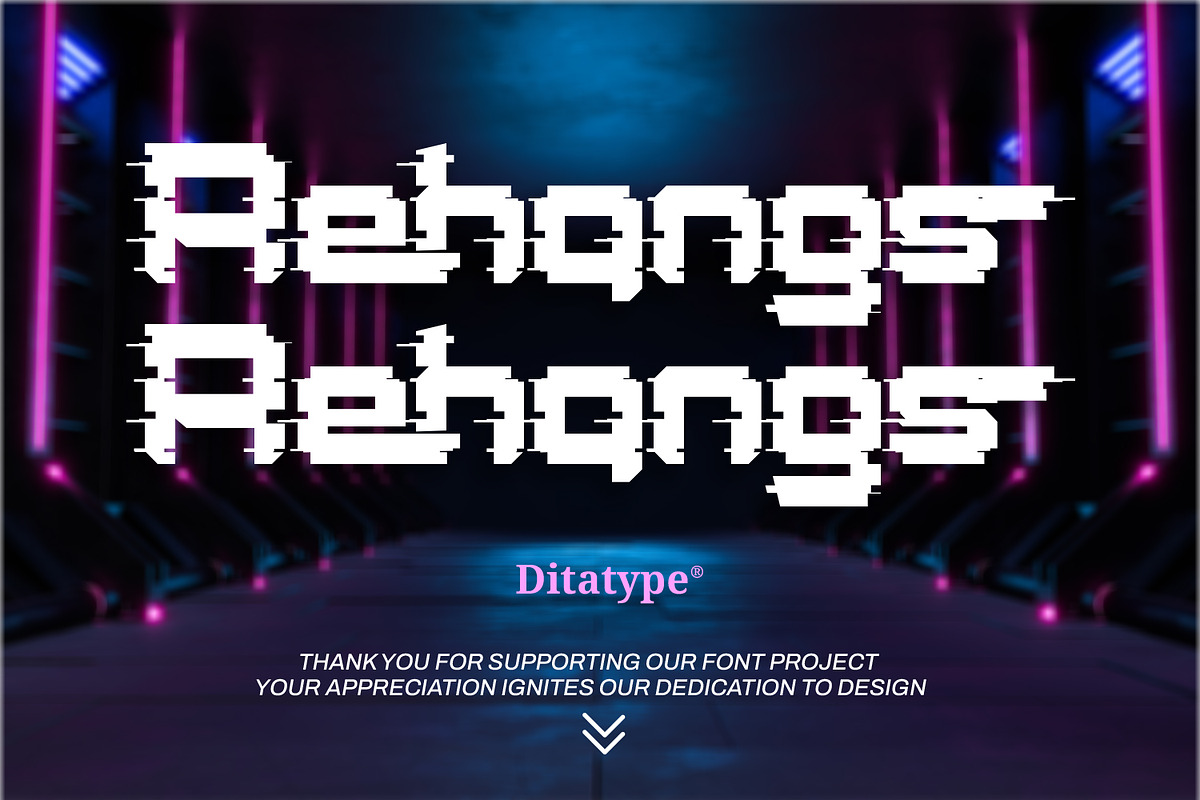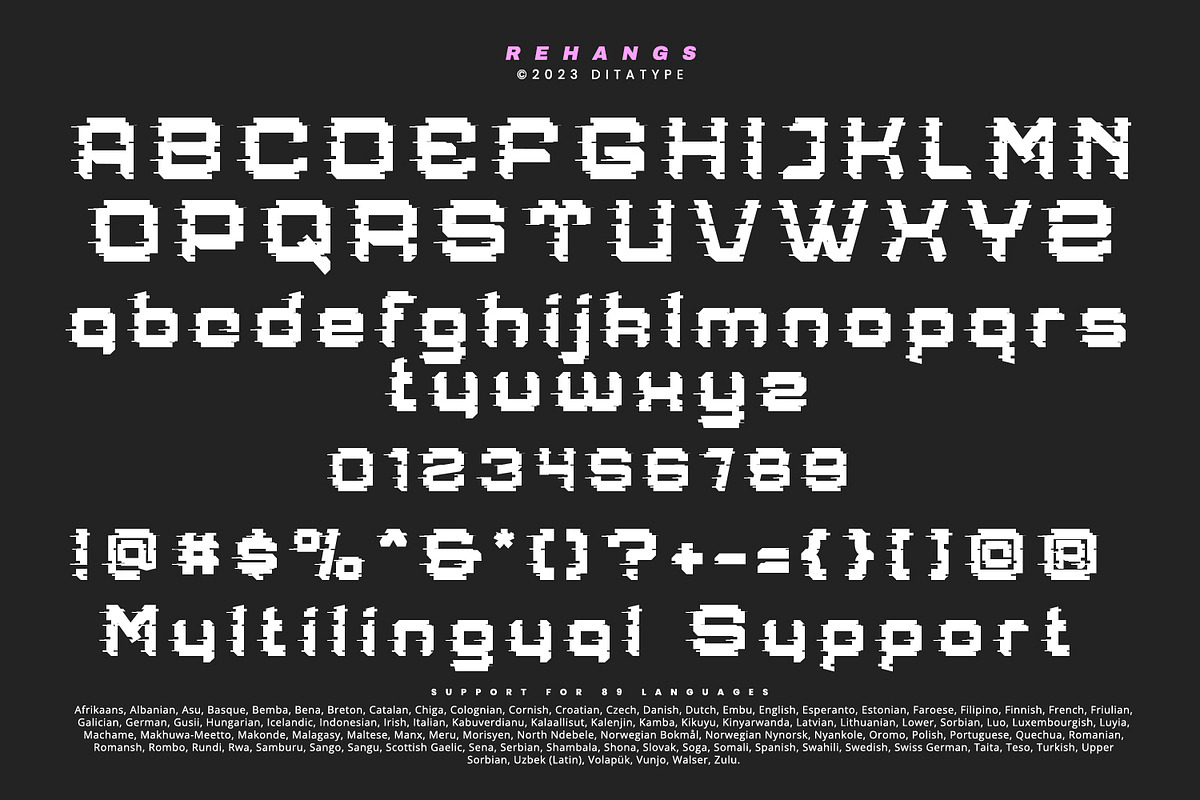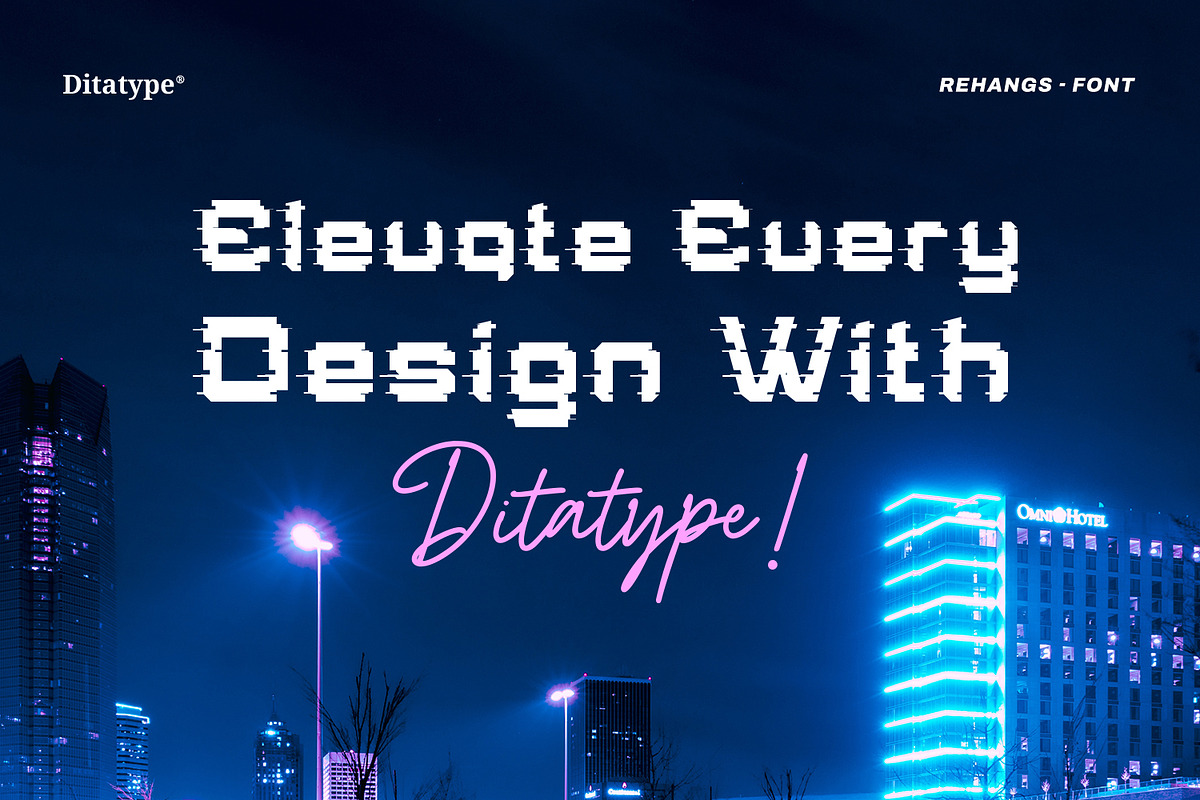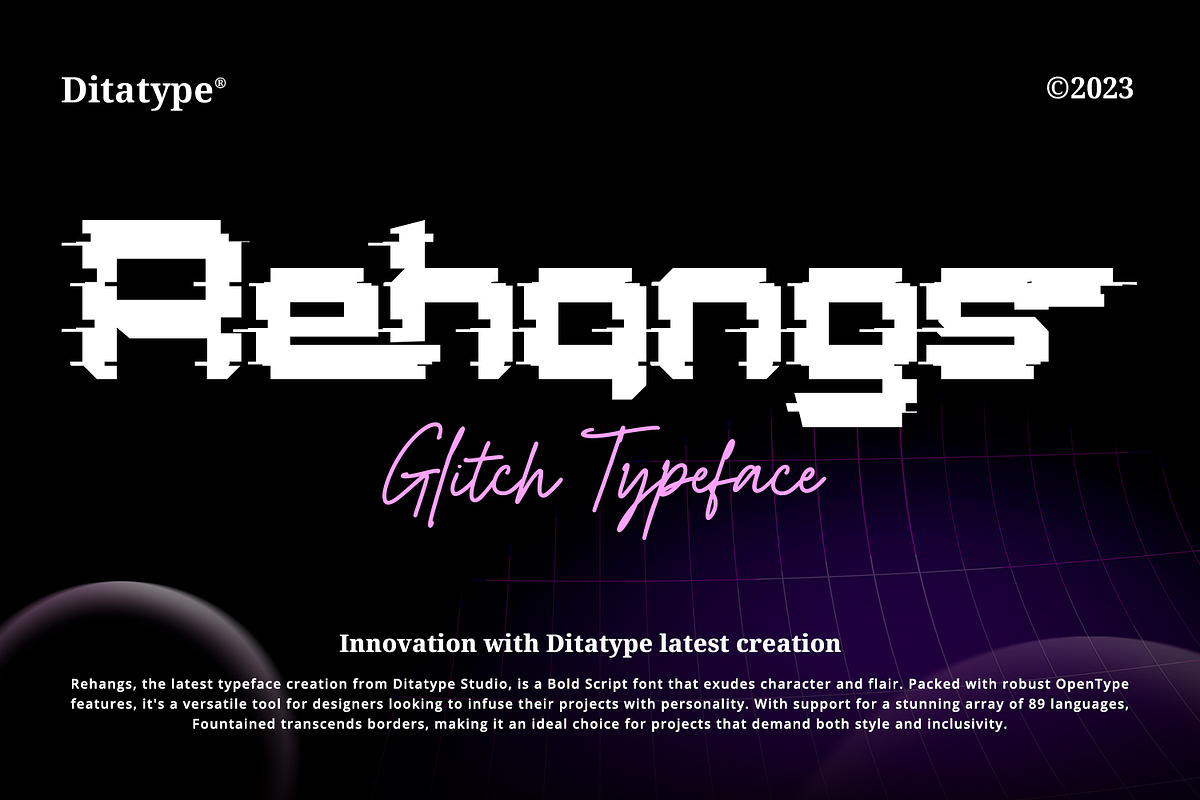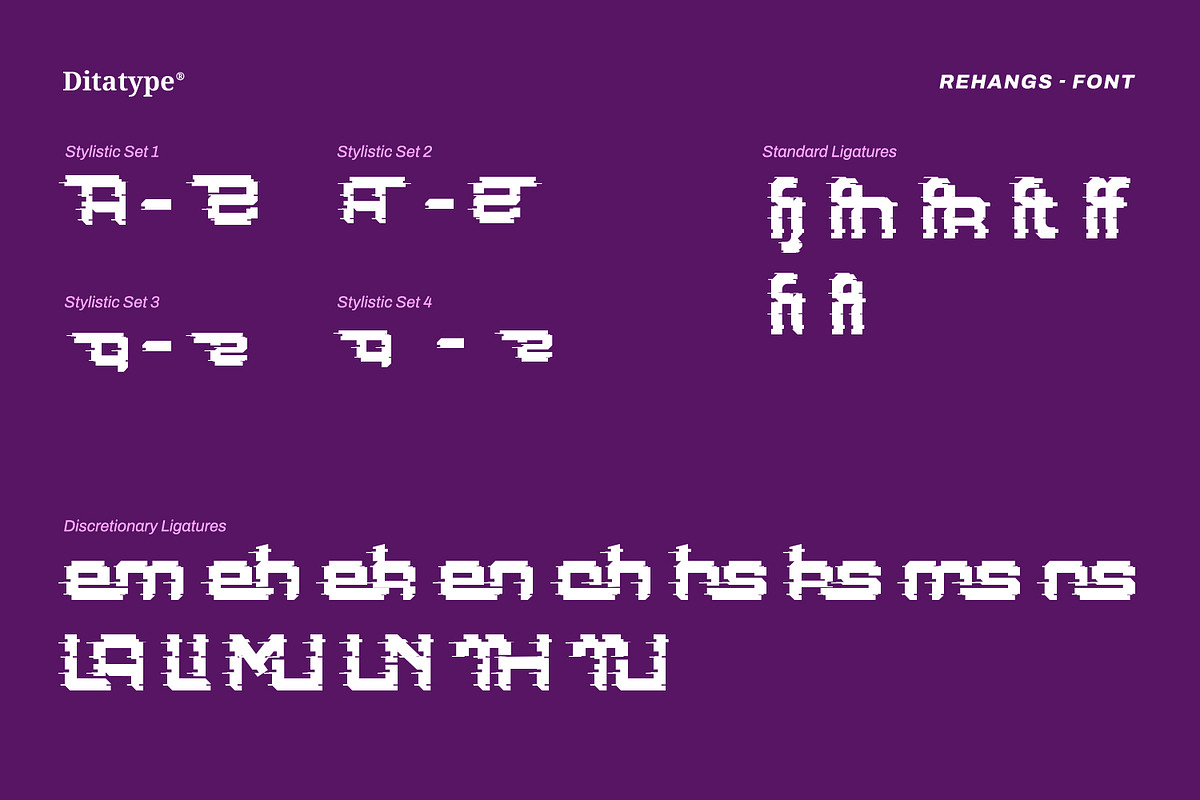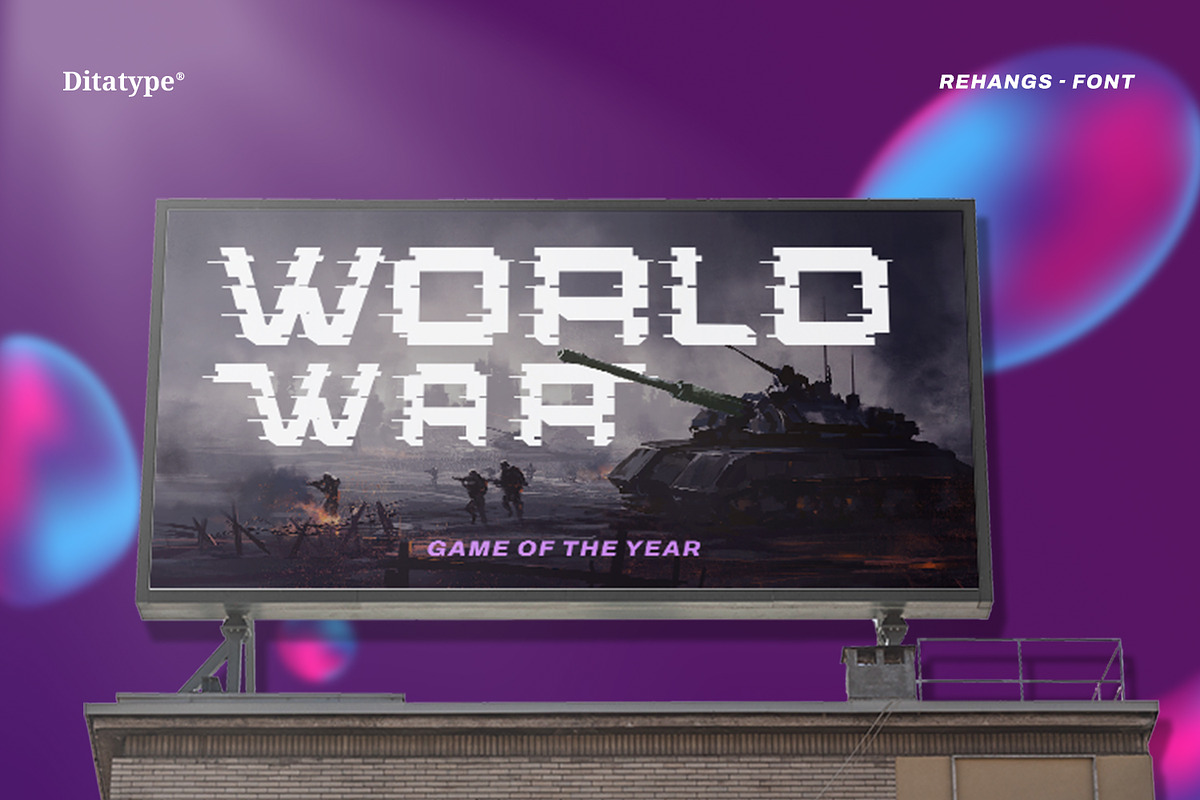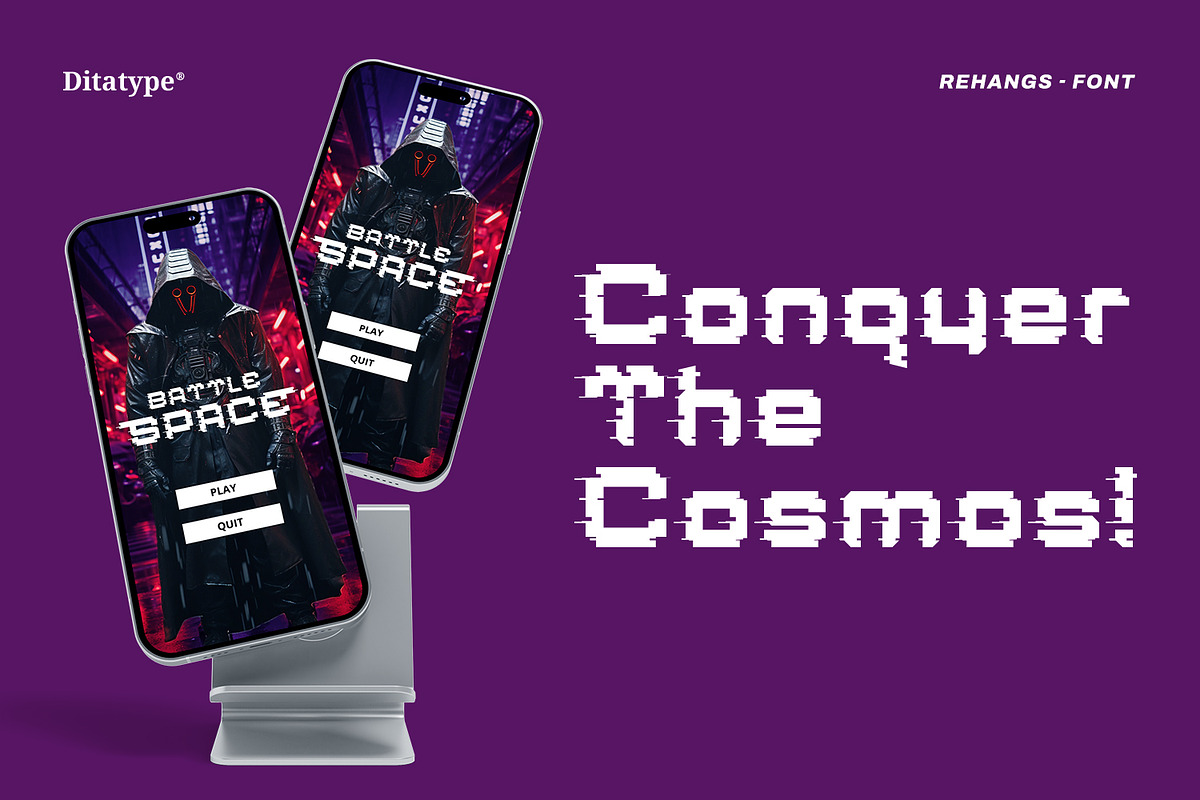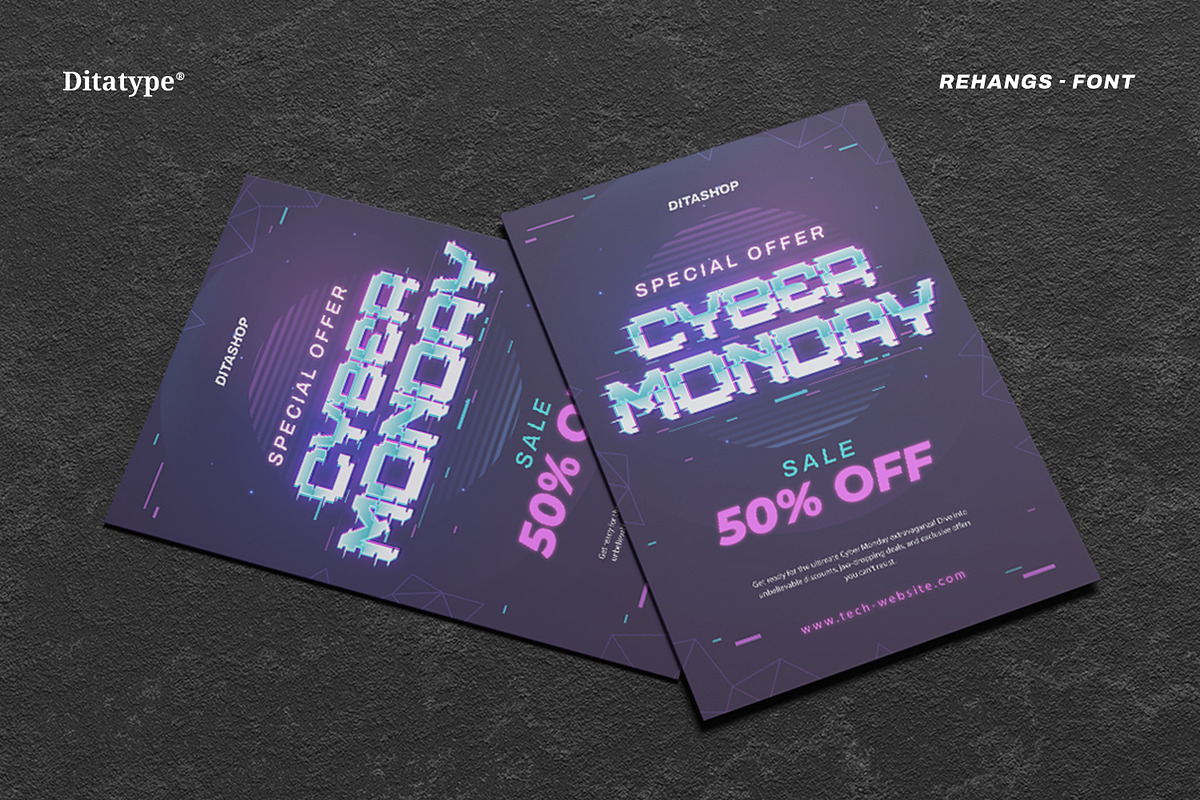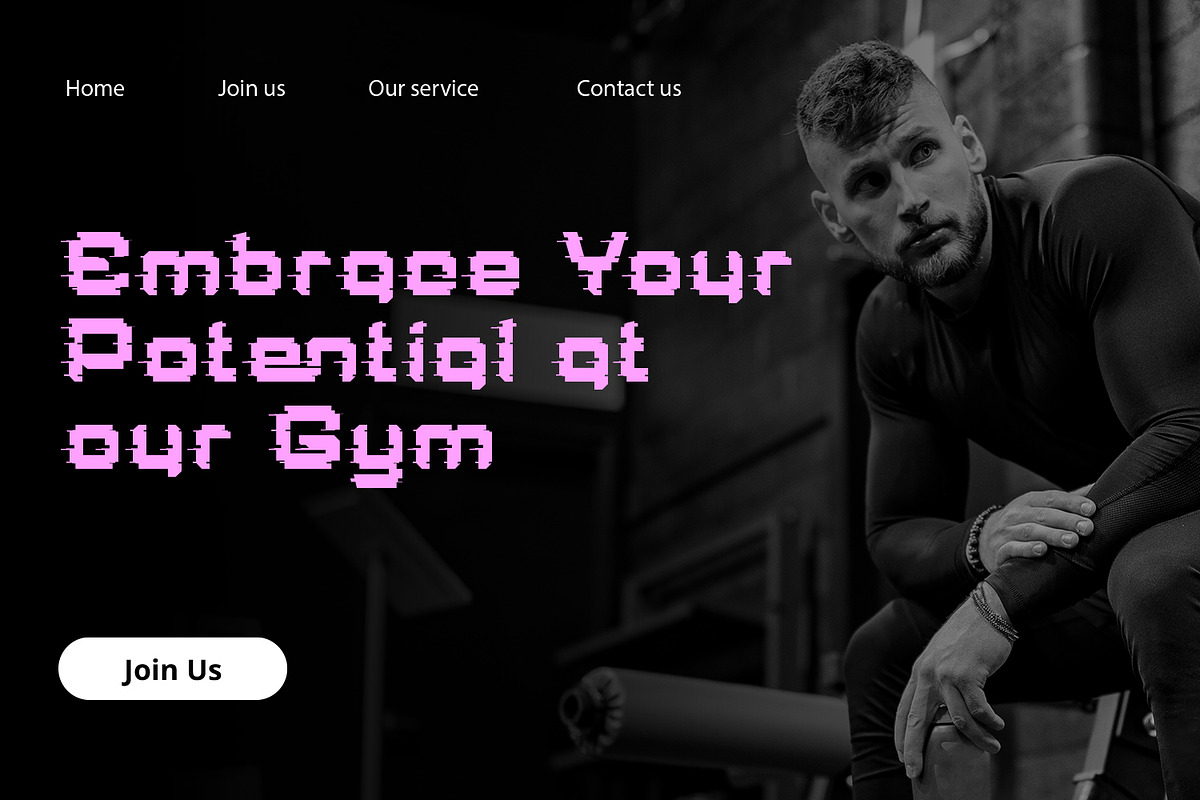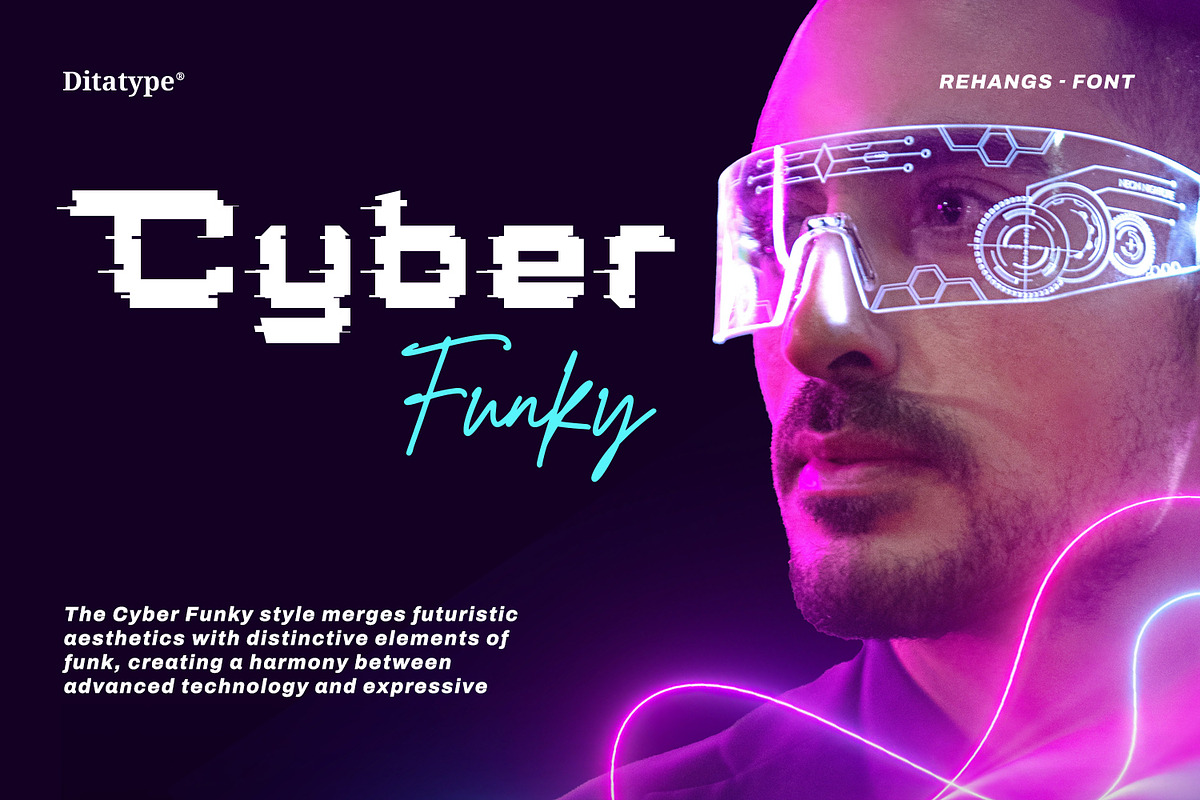
Rehangs
Rehangs is a groundbreaking display font that propels typography into the future with its fusion of futuristic style and techno innovation. Crafted with large letters that demand attention, Rehangs captivates viewers with its bold presence and cutting-edge design elements.
Drawing inspiration from the sleek lines and geometric shapes of futuristic aesthetics, Rehangs introduces a new paradigm in typographic expression. Each letter is meticulously crafted to embody the essence of technological advancement, with dynamic angles and innovative details that evoke a sense of progress and innovation. In addition, enjoy the features here.
- Stylistic Sets
Rehangs fits in headlines, logos, posters, flyers, branding materials, greeting cards, print media, editorial layouts, and many more designs. Find out more ways to use this font by taking a look at the font preview.